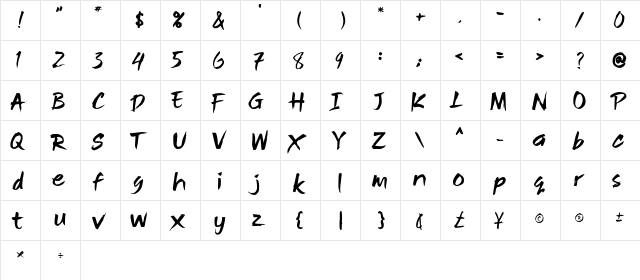
Bajigur Brush Font Regular
Design Context for Bajigur Brush Font Typeface
Bajigur Brush Font brings a calligraphic fluidity to the page — its connecting strokes and expressive curves give it an unmistakably human quality.
Font Pairing: Combine Bajigur Brush Font with a simple geometric sans for maximum contrast — the tension between flowing curves and clean structure is a classic typographic pairing.
Pro Tip: Pair Bajigur Brush Font with a clean sans-serif for supporting text. The contrast between fluid script and geometric structure creates an elegant typographic hierarchy.